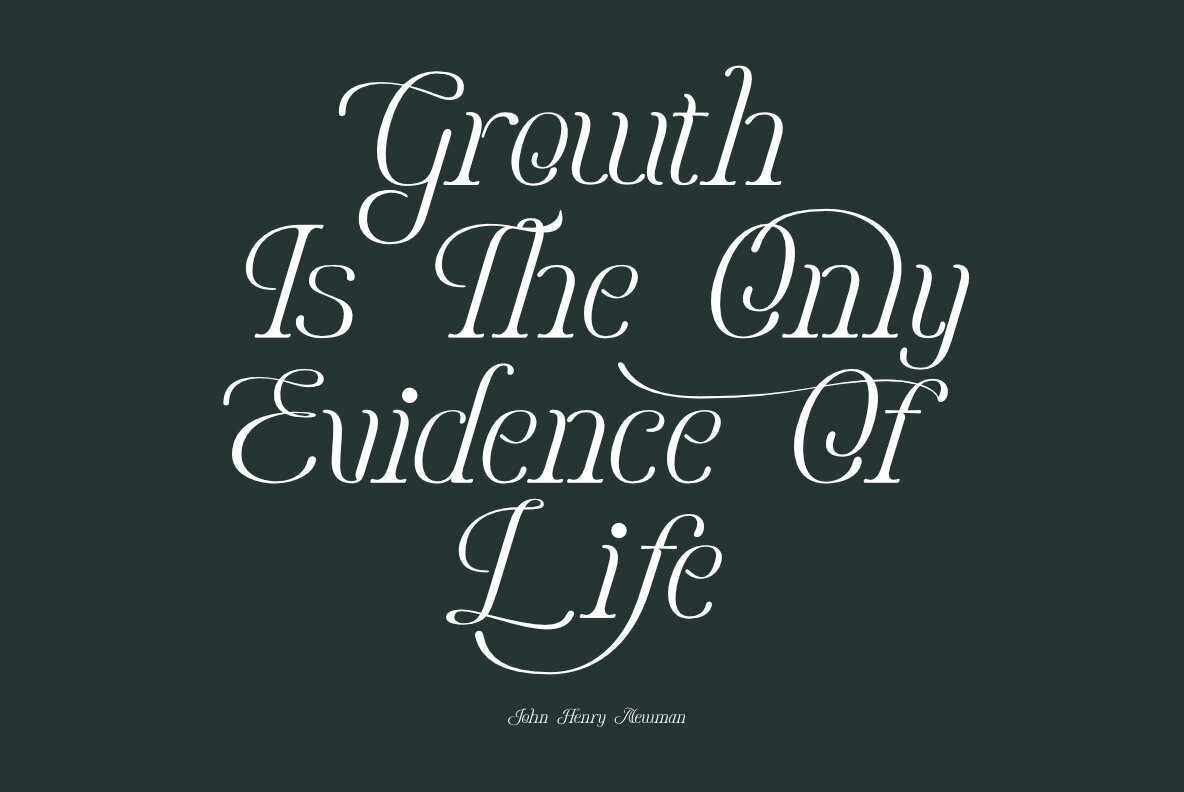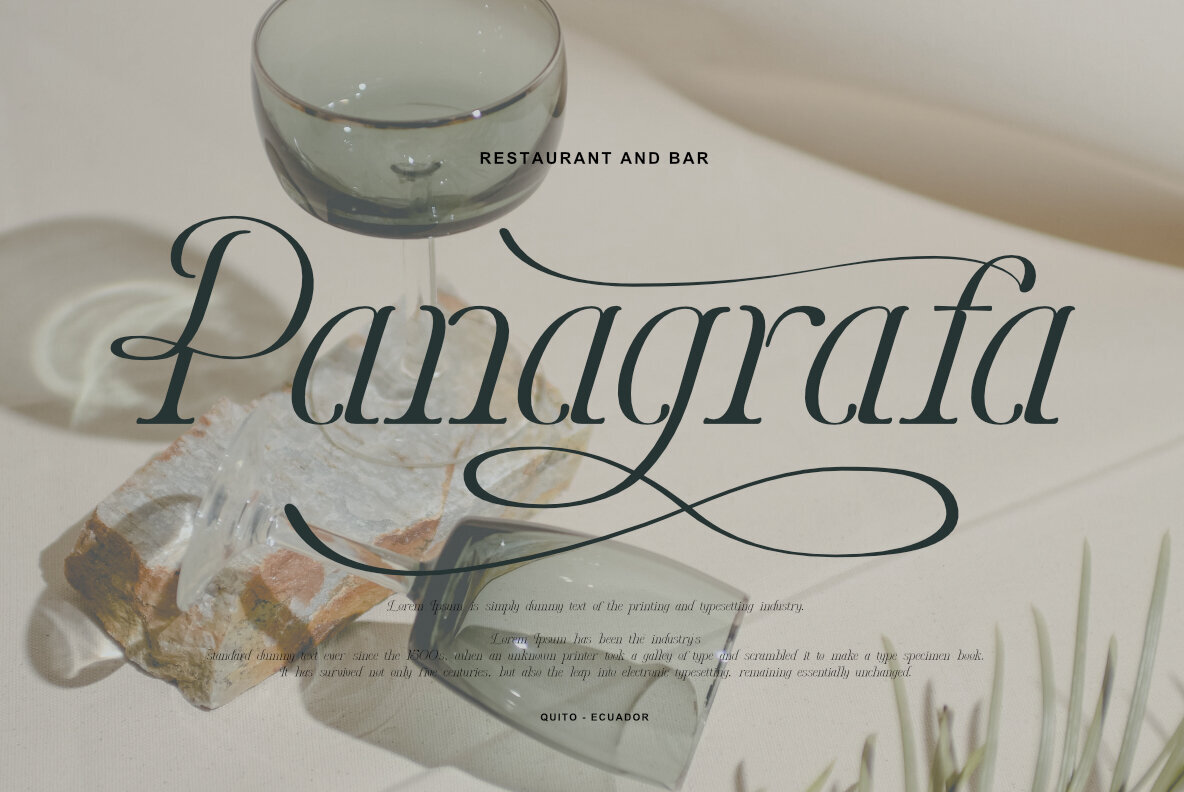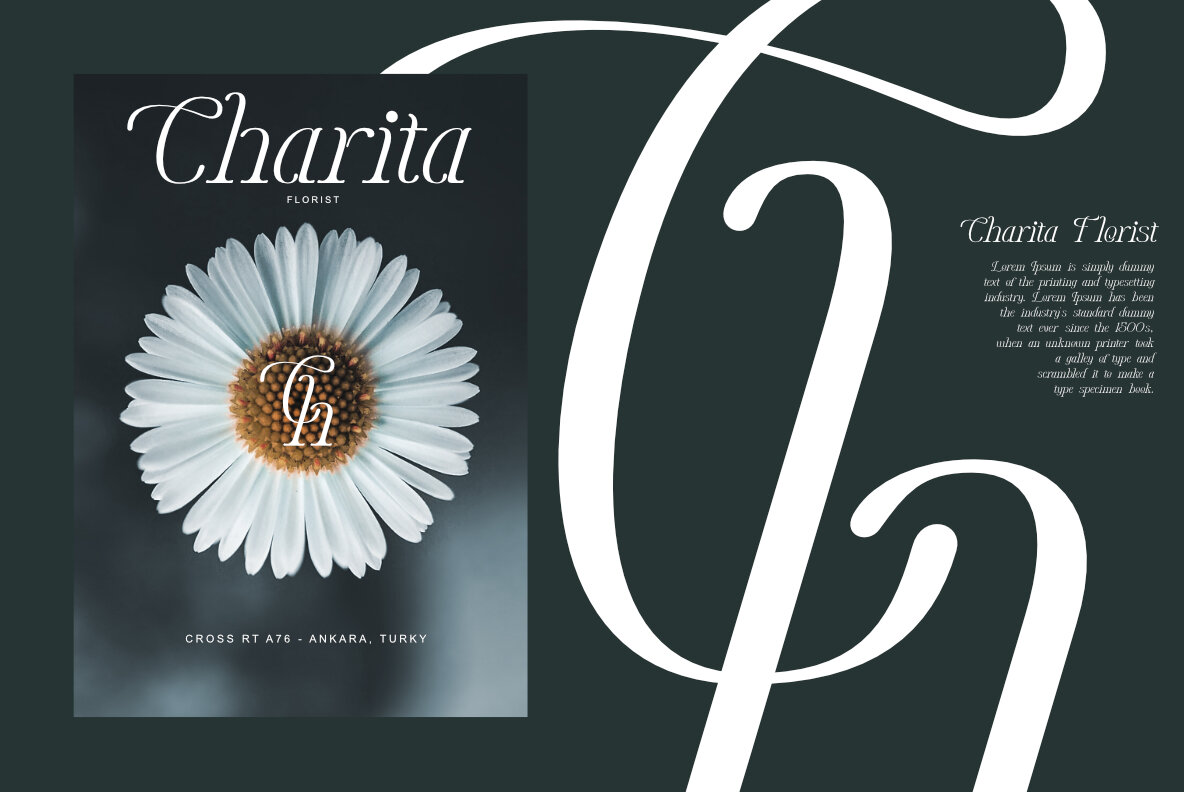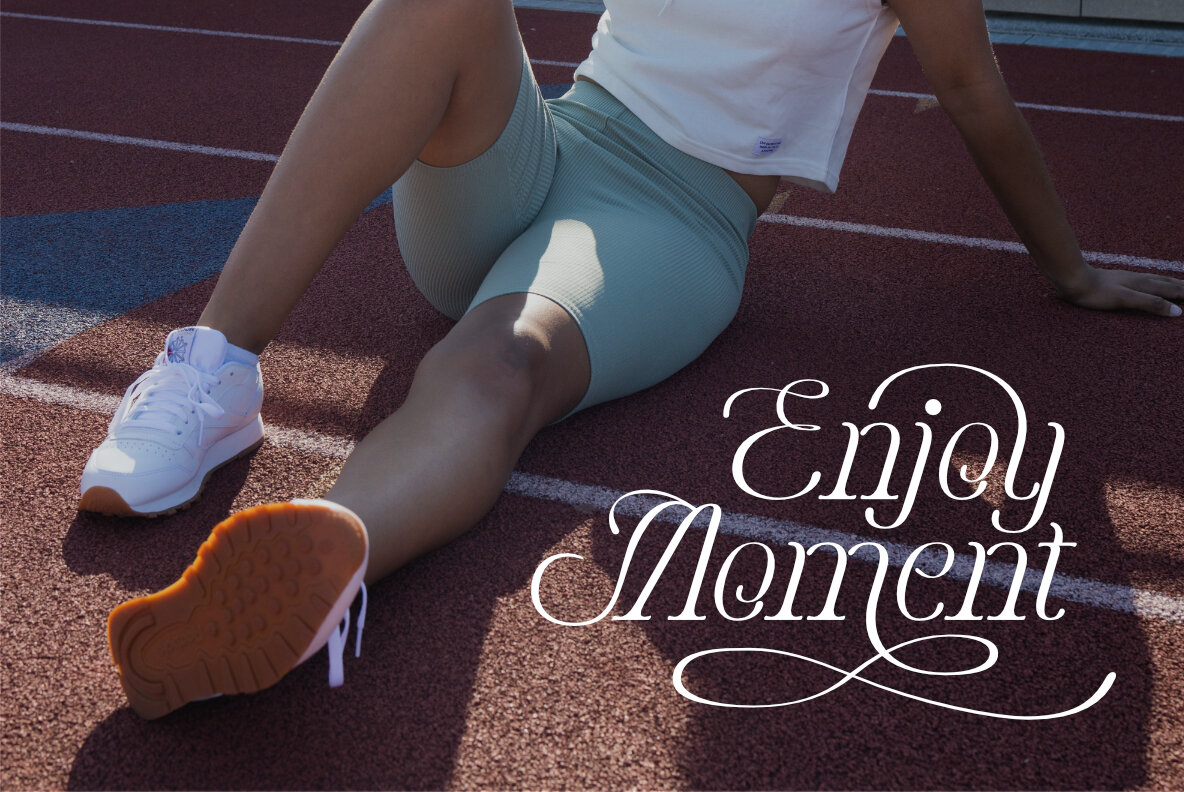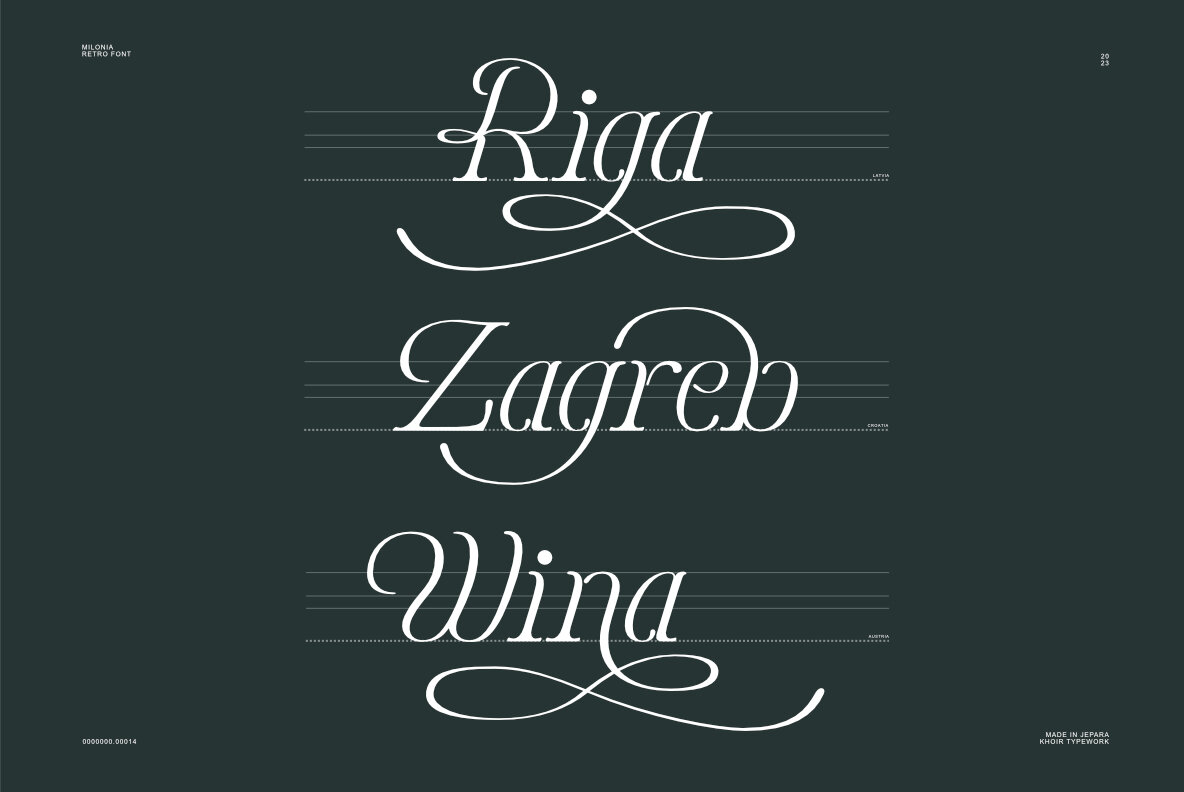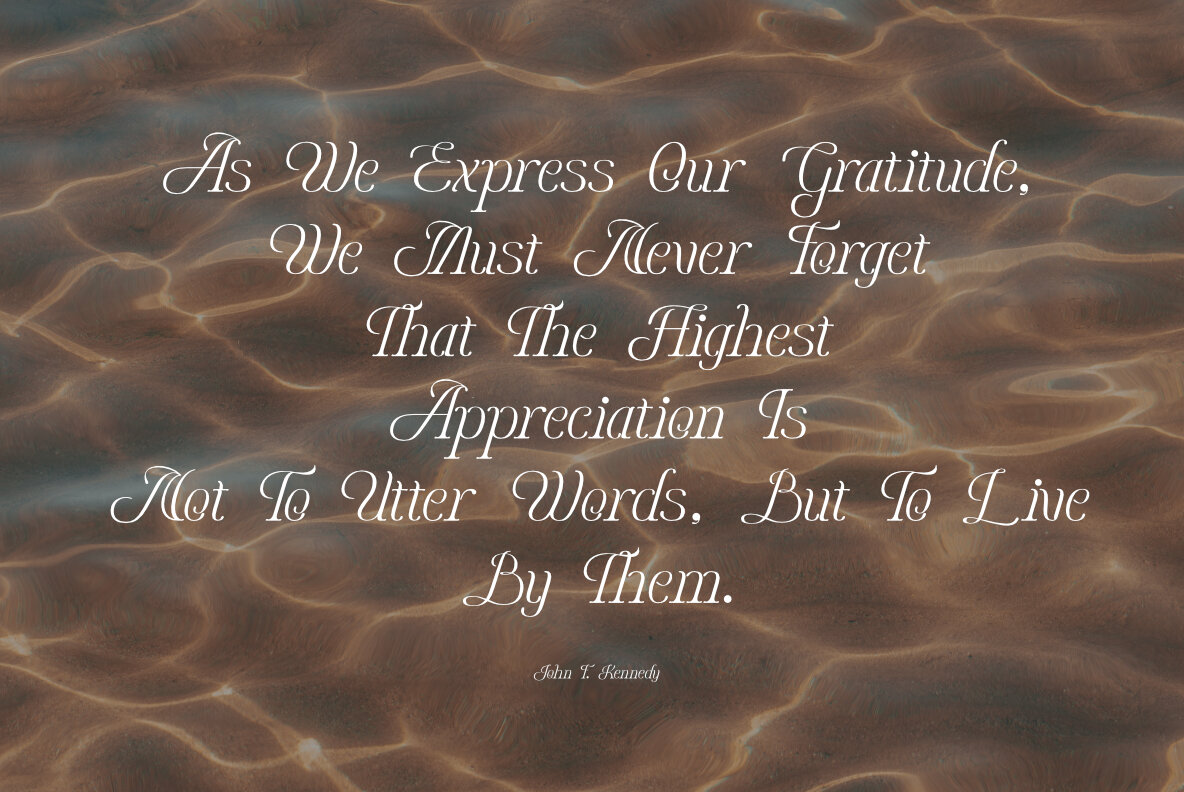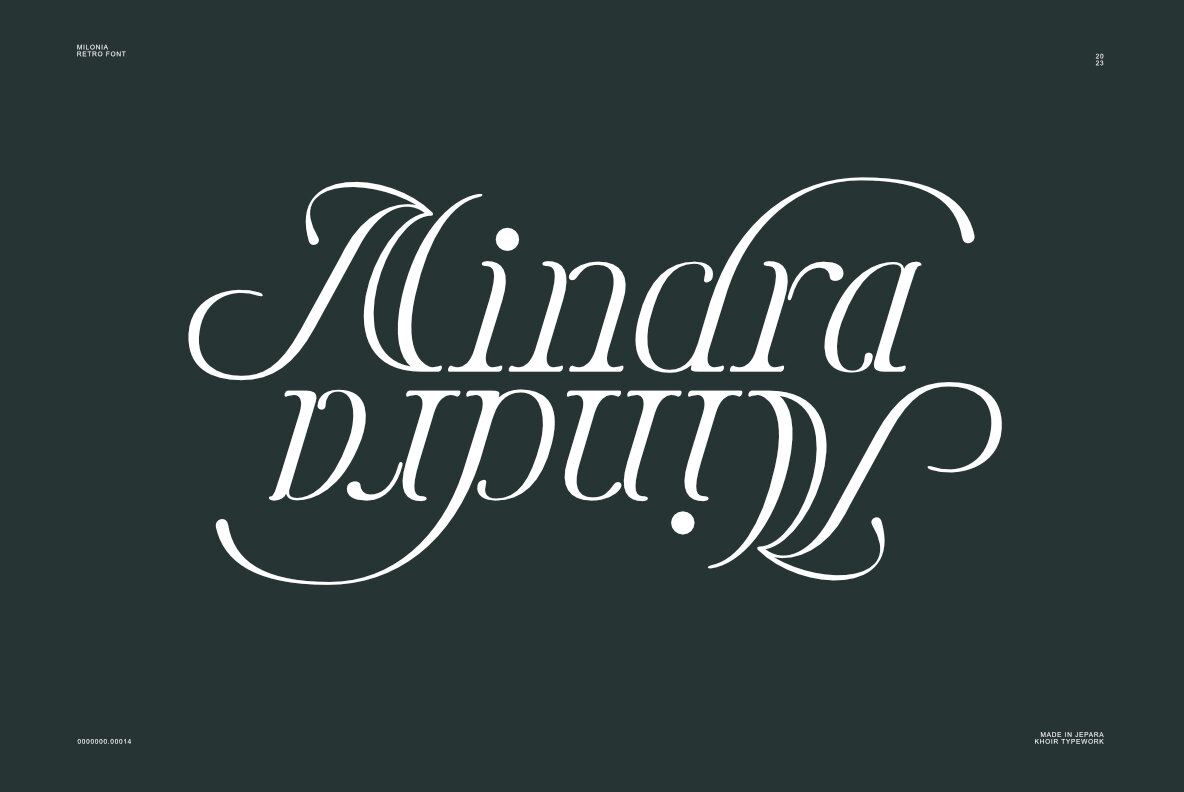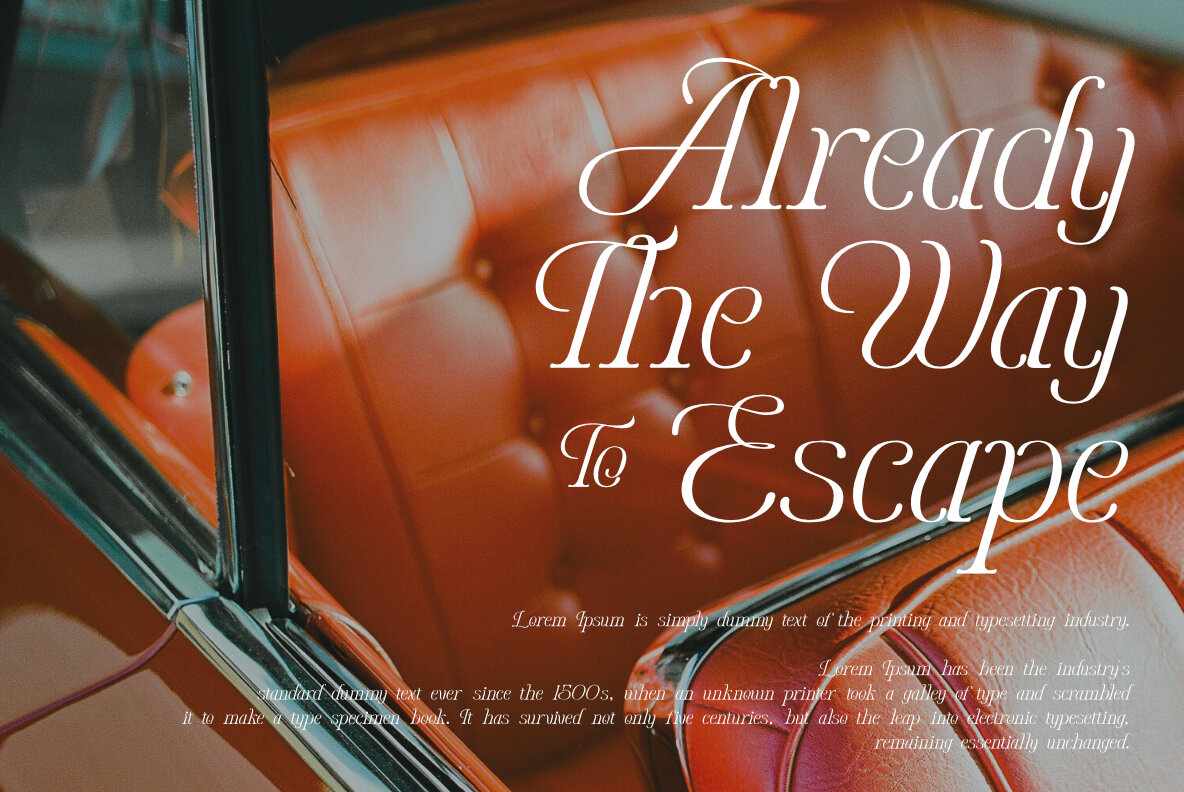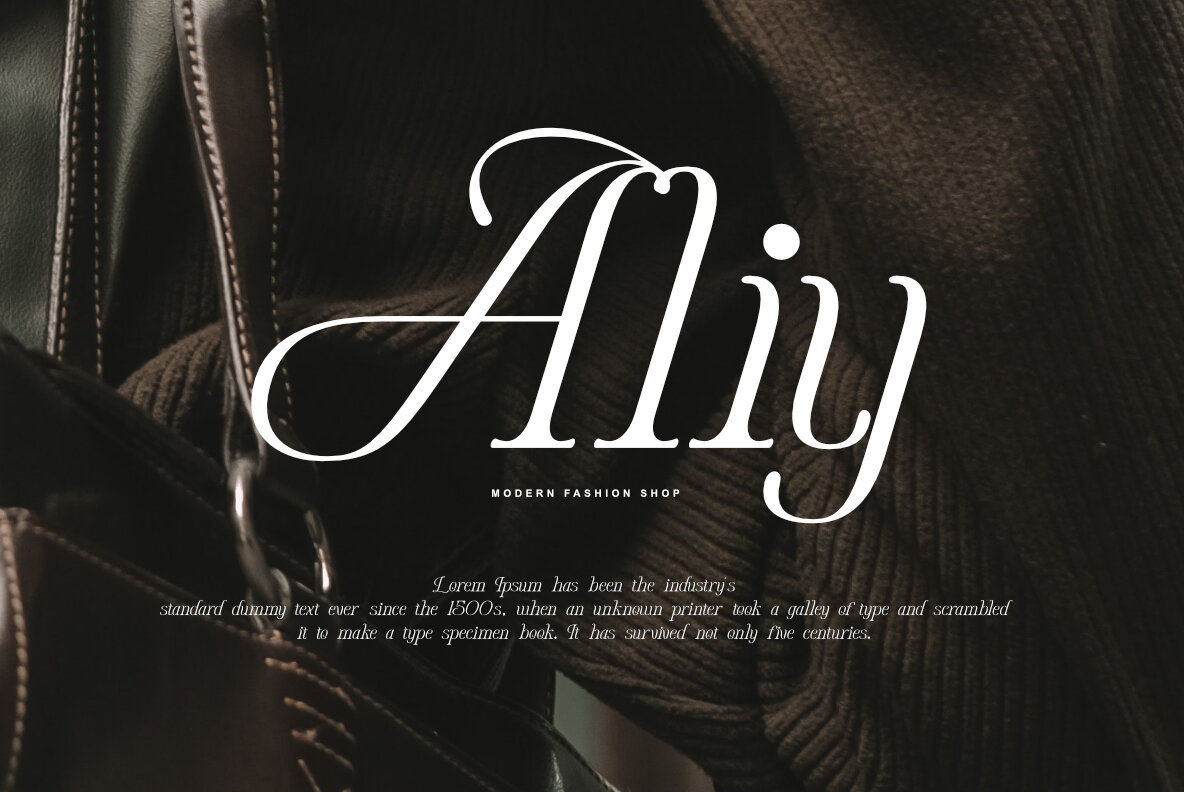
Milonia Font
Milonia
Milonia presents a sophisticated serif font that accentuates beauty through its elegantly crafted letter shapes and exquisite tails. Designed to offer versatility, Milonia features numerous alternative characters, enriching your creative projects with timeless charm. Features: Milonia is a superb choice for designers seeking to refine their work with a touch of elegance and diversity.Milonia: Refined Serif with Elegant Alternatives